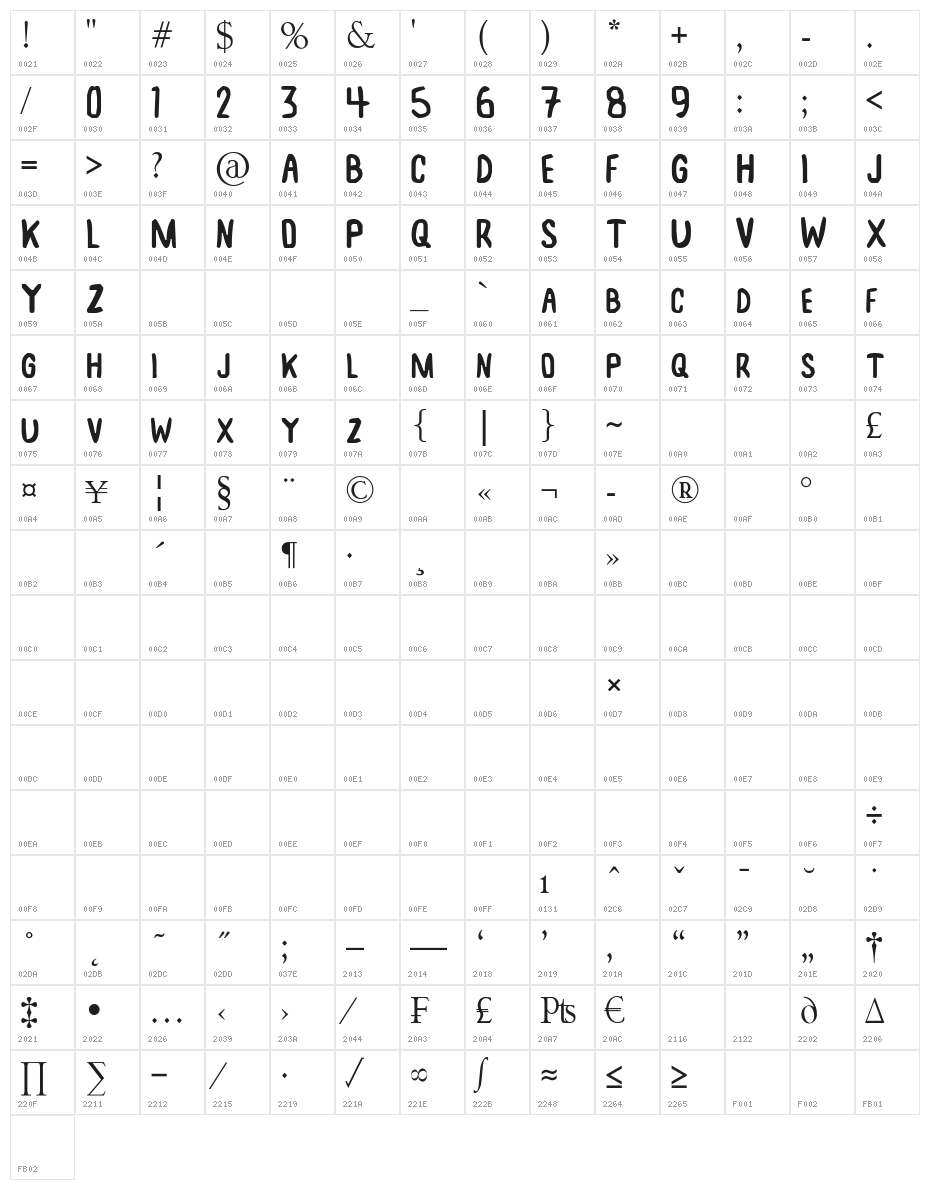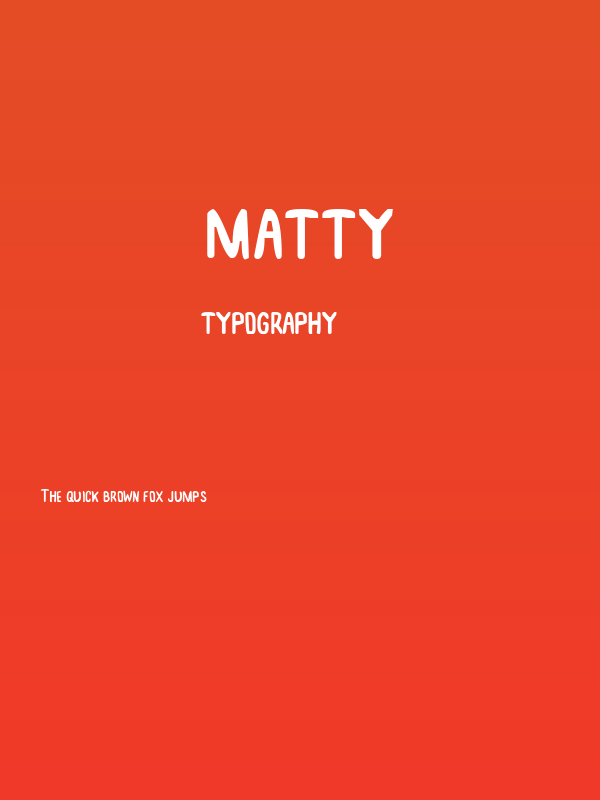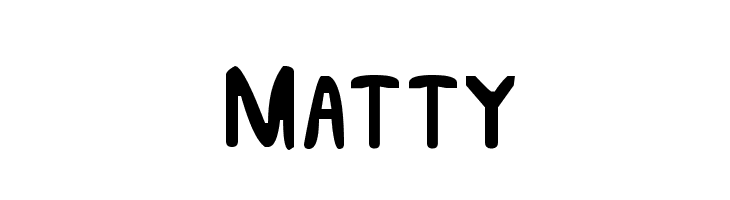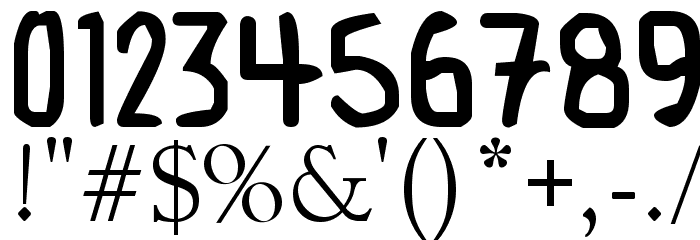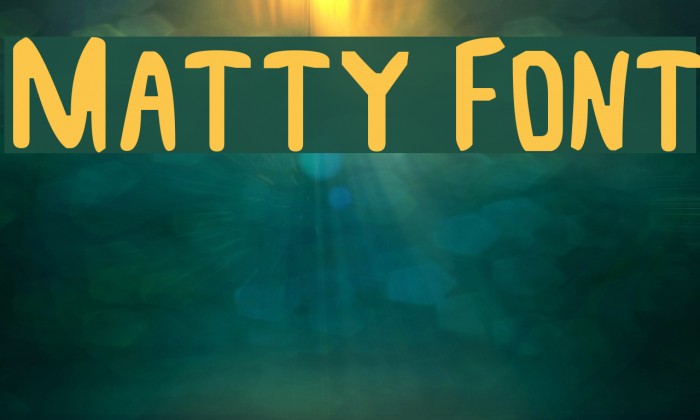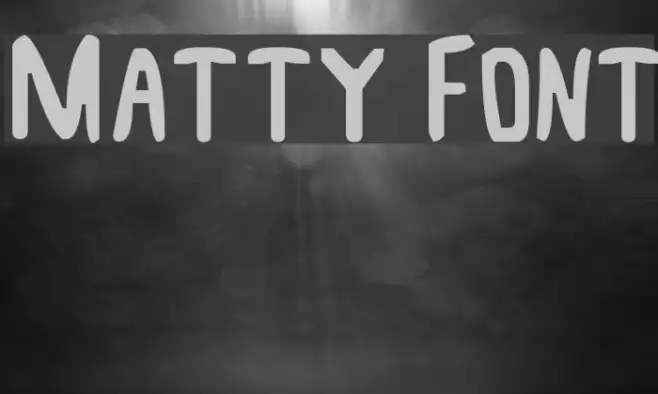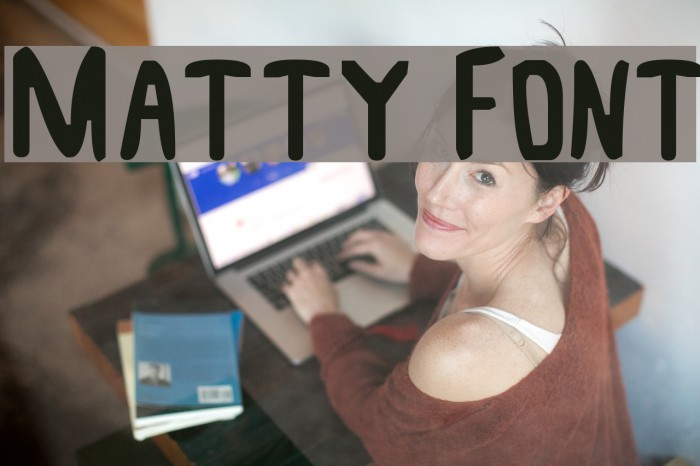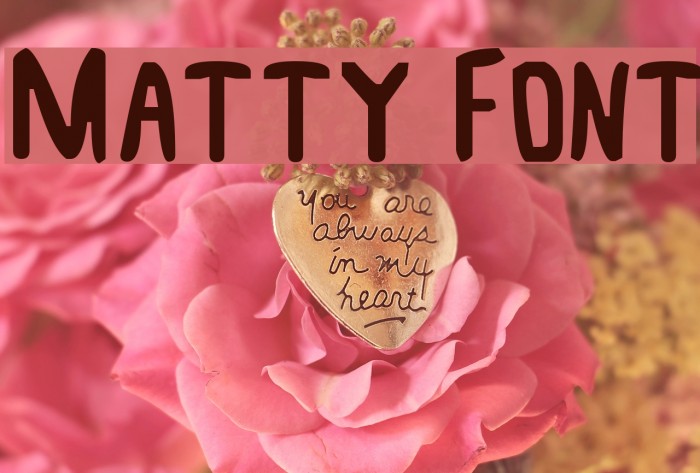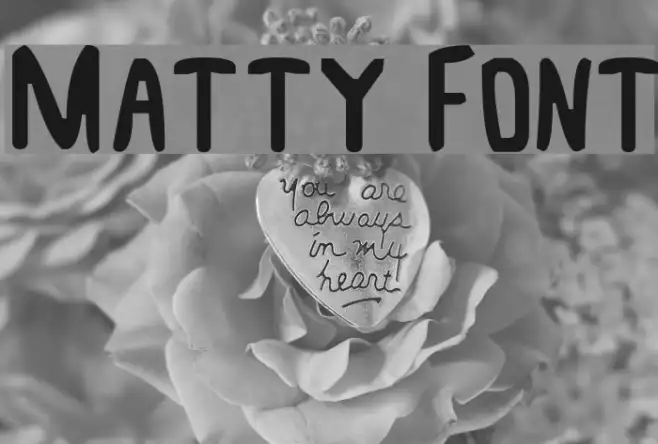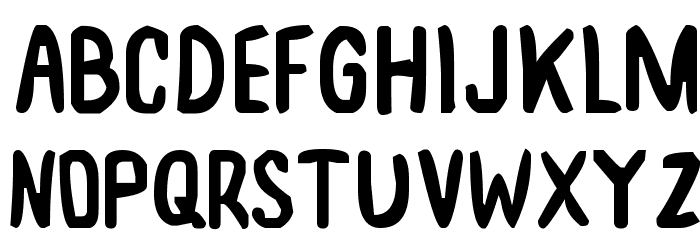
Matty Font
Matty Description
This font features a playful and bold design with a handwritten style. The characters are slightly irregular, giving it a casual and friendly appearance. The strokes are thick and rounded, contributing to its approachable and informal look. The letters are well-spaced, ensuring readability while maintaining a lively and dynamic feel. This font is ideal for projects that require a touch of personality and creativity, making it suitable for children's books, posters, and playful branding.
| Proposed Projects | Ideal for children's books, playful branding, posters, and creative projects. |